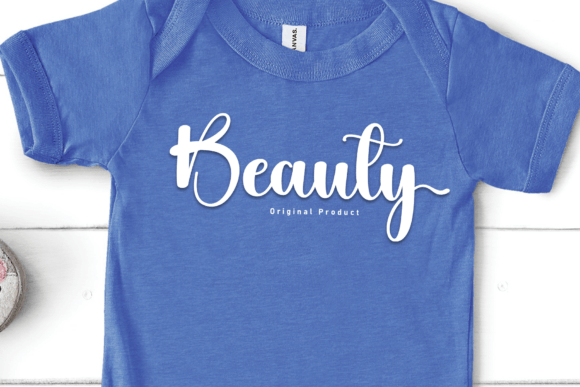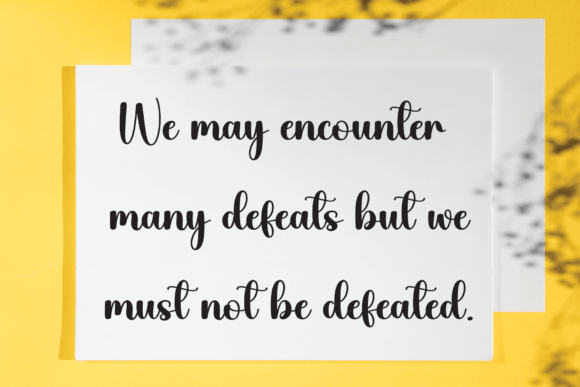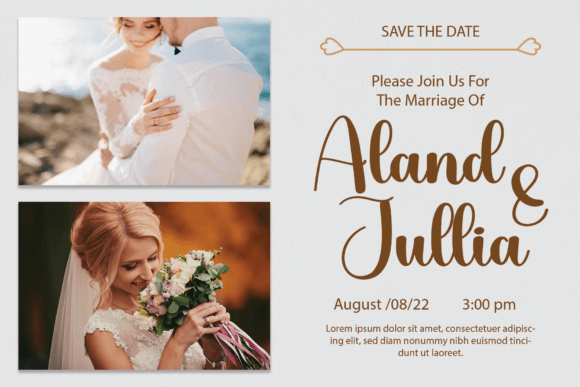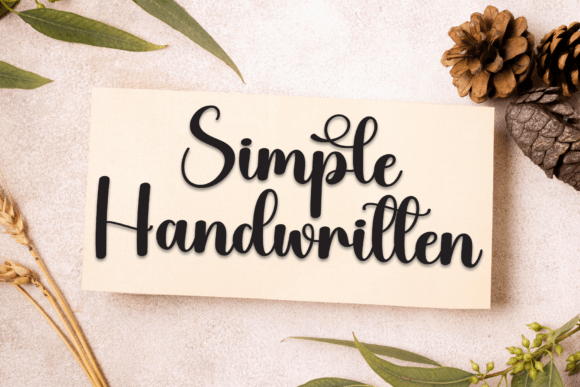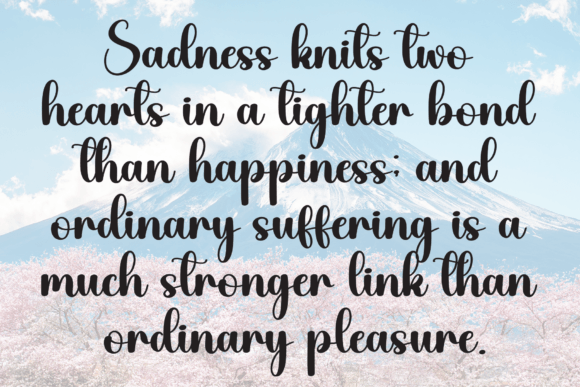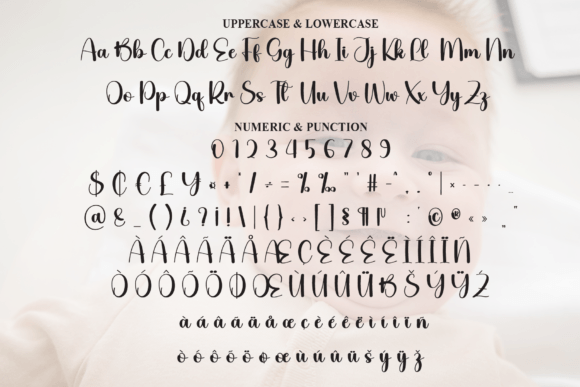
The Joy of Chubby Font: A Playful, Bold Handwritten Delight
I’ll never forget the time I was working on a project for a children’s birthday party invitation. I had all the design elements ready, but something was missing – the perfect font. I scrolled through my font library, but nothing seemed quite right. That’s when I stumbled upon Chubby Font, a playful, bold handwritten font that instantly brought a smile to my face. Its round letters and cheerful feel were exactly what I needed to give my design a lighthearted touch.
An Honest Review of Chubby Font
• ✨ Playful and fun design that’s perfect for casual projects
• ✅ Bold and eye-catching, making it great for titles and headings
• 💕 Friendly and approachable feel that’s sure to delight your audience
• 🎉 Easy to read, even in smaller sizes
While Chubby Font is an amazing addition to any design project, there are a few things to keep in mind:
• ⚠️ May not be suitable for formal or professional projects, as it can come across as too playful
• 🤔 Limited availability of stylistic alternates, which may limit its versatility
The Backstory of Chubby Font
Chubby Font was designed with one goal in mind: to create a playful, bold handwritten font that’s fun and friendly. The designer, inspired by childhood memories of playing with rounded, chubby characters, set out to create a font that would bring a smile to people’s faces. With its round letters and cheerful feel, Chubby Font is the perfect addition to any casual design project.
Font Name Chubby Font
Author Creativewhitee
Q: Can I use Chubby Font for branding and logos?
A: While Chubby Font is a great font for casual designs, it may not be the best choice for branding and logos, as it can come across as too playful.